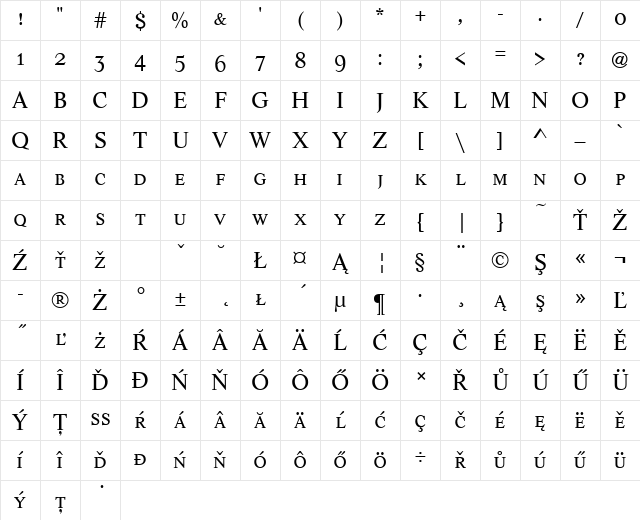
LifeSCTEE Regular
LifeSCTEE Family
LifeSCTEE Regular
Design Context for LifeSCTEE
LifeSCTEE is a composed and adaptable typeface that performs quietly and consistently across a wide range of design contexts.